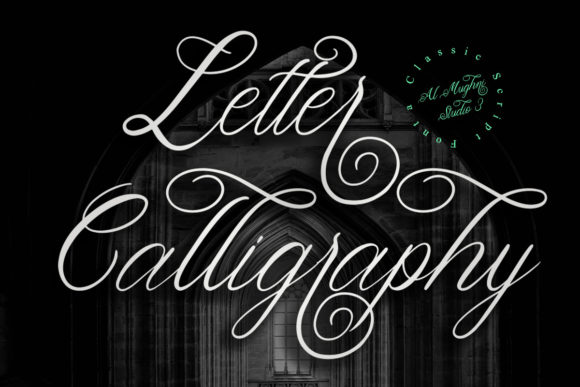
Step into the world of elegance and creativity with Letter Calligraphy Font, the exquisite script font that will transform your designs into captivating masterpieces. Experience the beauty of intricate swirls, delicate strokes, and timeless appeal that will leave a lasting impression.
Immerse yourself in a world of possibilities, where Letter Calligraphy Font becomes your perfect partner in creating stunning logos that exude sophistication and charm. Craft brand identities that are both memorable and captivating, leaving a lasting impact on your audience. Unleash your creativity and let your imagination soar as you design breathtaking quotes that resonate with your audience, inspiring and enchanting them with every word.
With Letter Calligraphy Font, you hold the key to unlocking a world of artistic expression. Embrace the timeless elegance of calligraphy and elevate your designs to new heights. Experience the magic as your words come alive, imbued with a touch of grace and allure that will captivate and inspire.
Discover the endless possibilities that await you with Letter Calligraphy Font. Let your creativity flourish, and embark on a journey of artistic exploration where elegance and beauty intertwine. Transform your designs into works of art that leave a lasting legacy of creativity and inspiration.